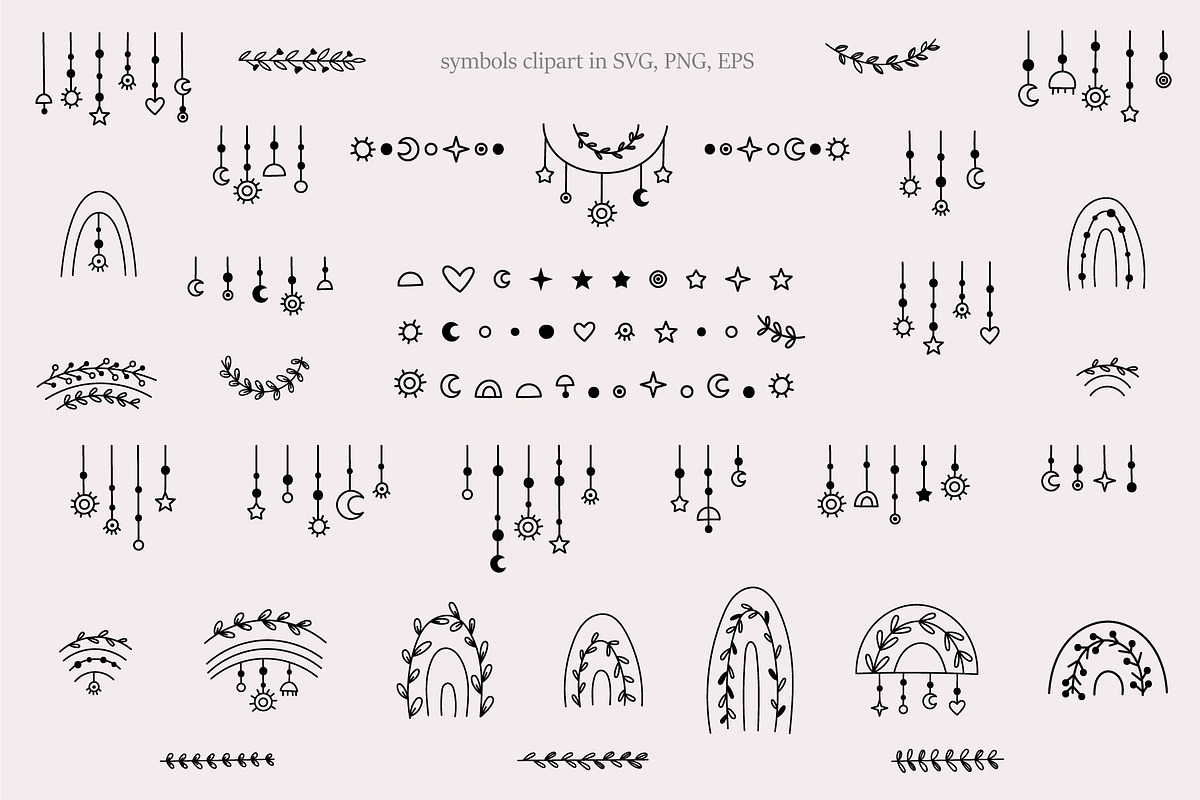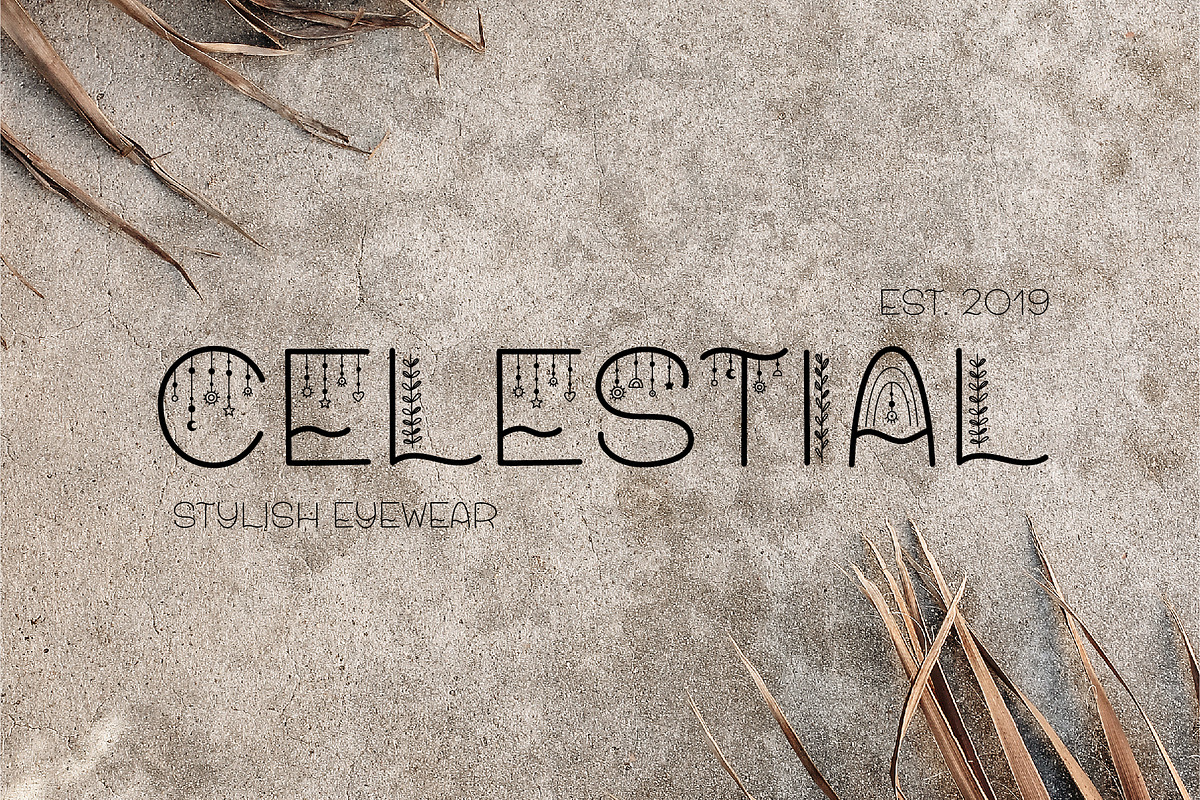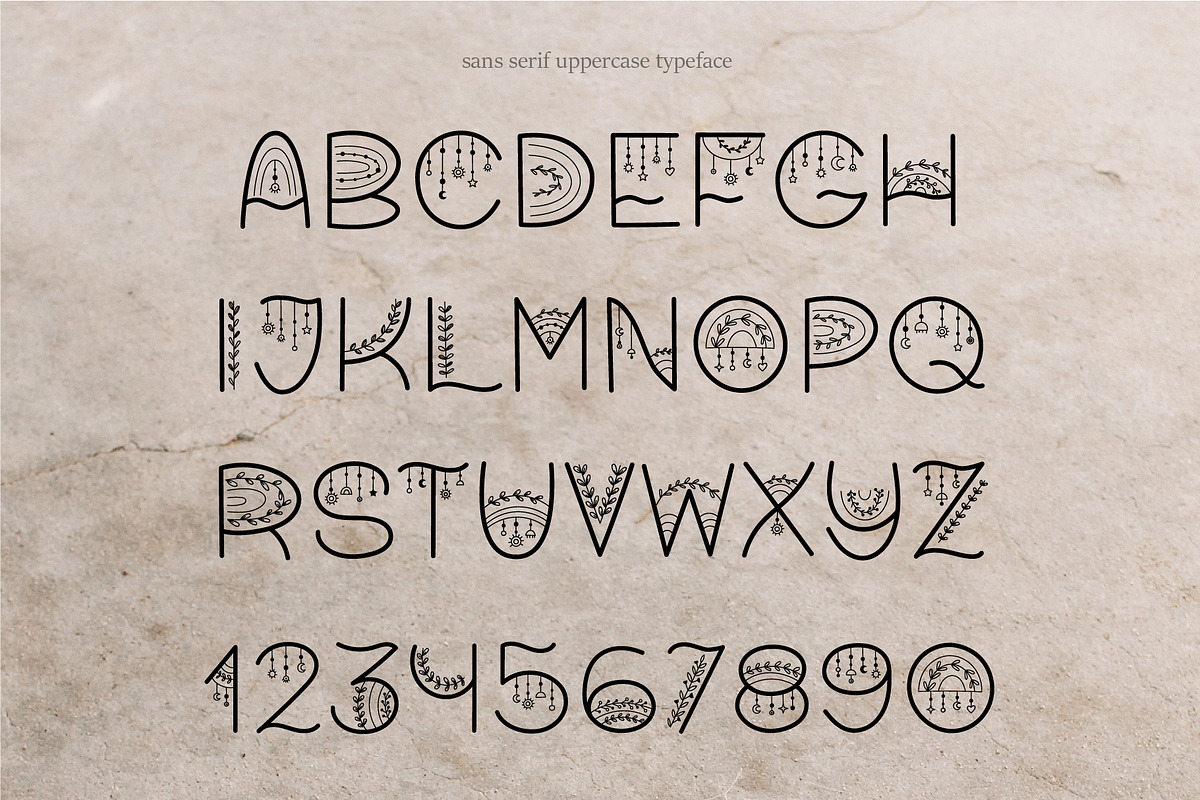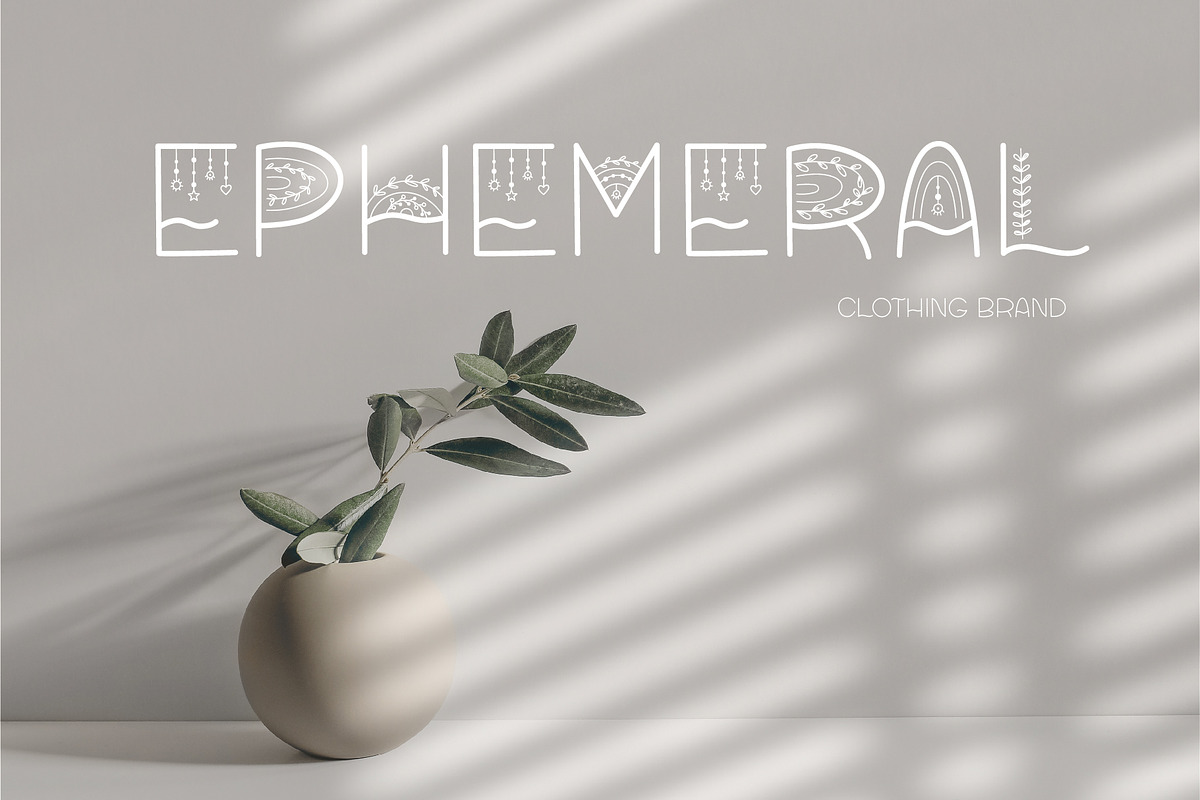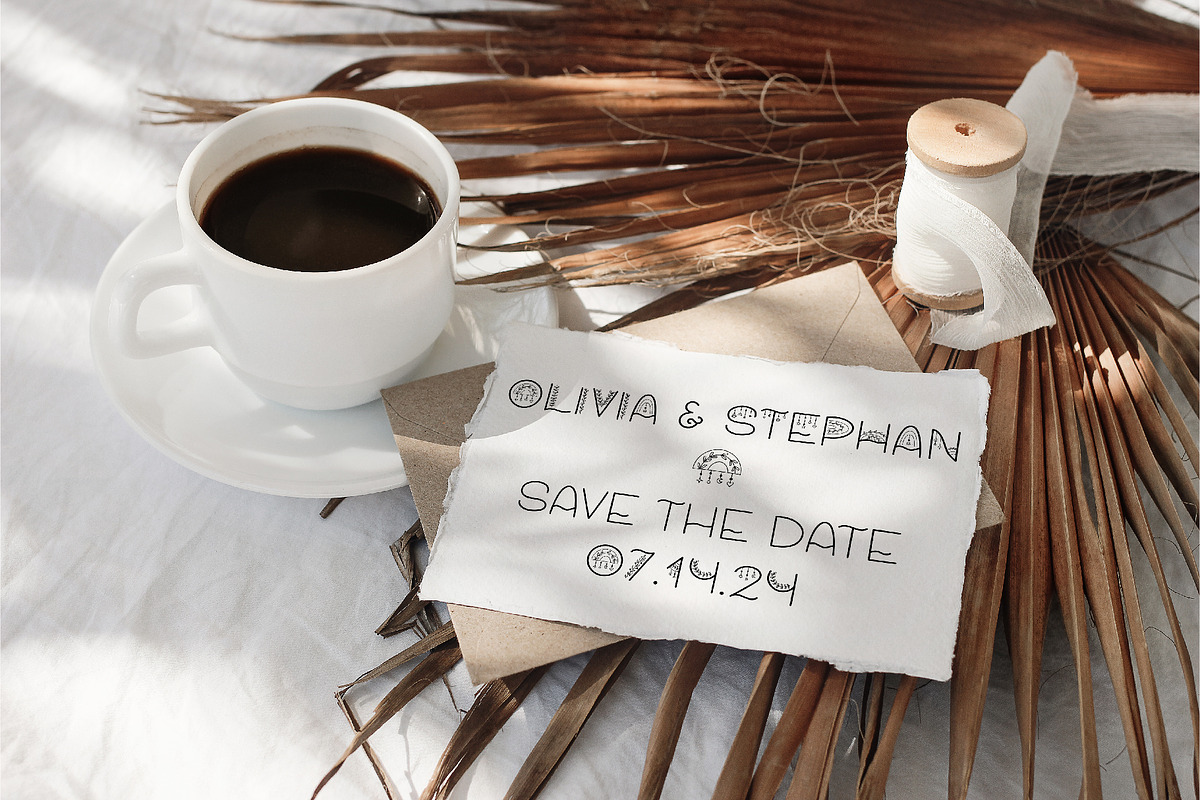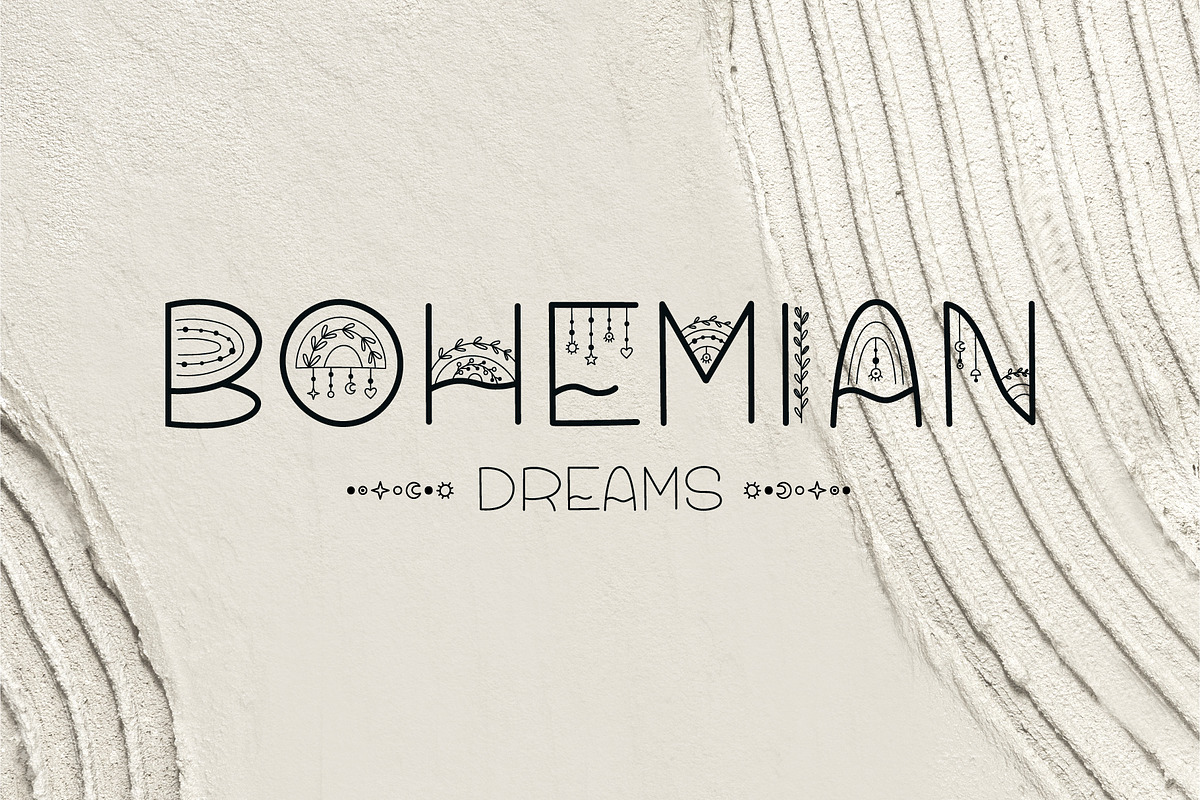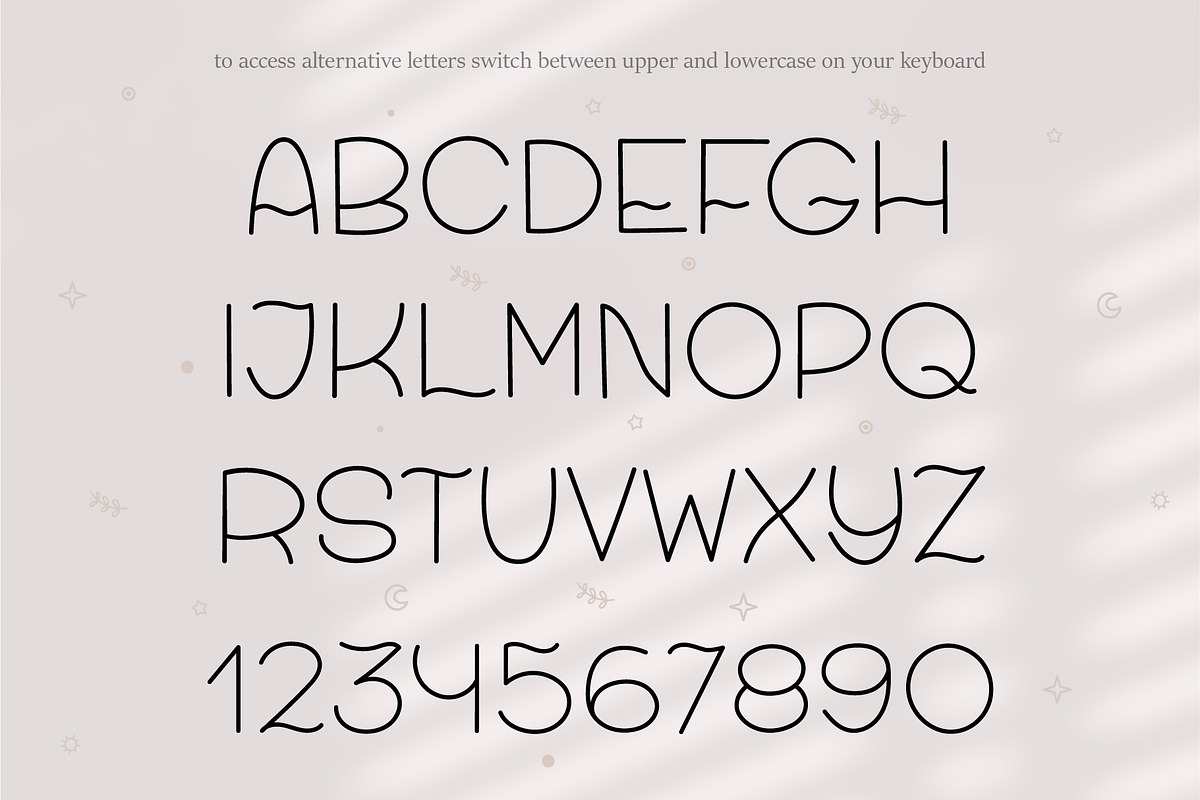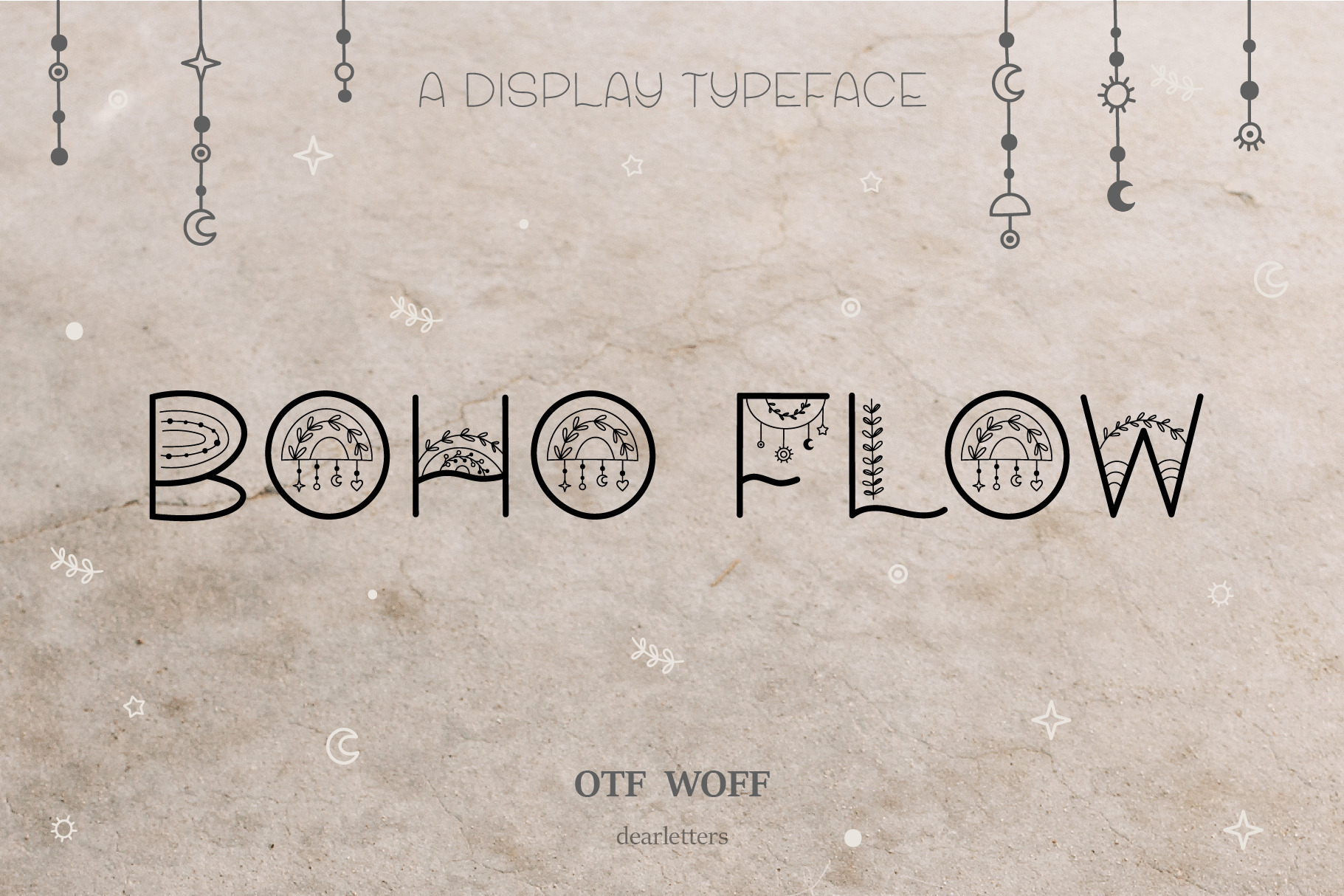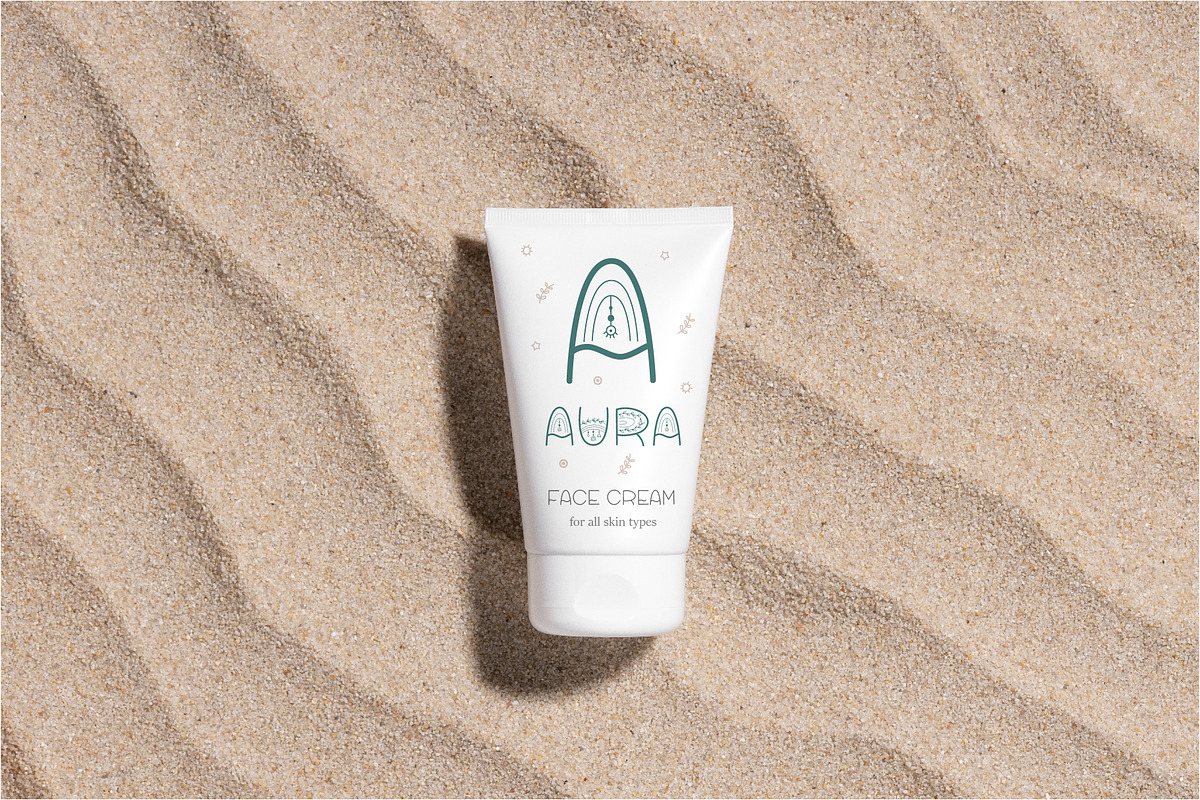
Boho Flow font and symbols
BOHO FLOW is a decorative hand-drawn uppercase font, presented in two variations. You'll also get a file with all the decor elements to give your designs a finished look! It's an authentic product that works great with branding projects, social media, logo design, wedding invitations, clothing branding, product packaging, nursery printables, magazine headers, photo overlays, posters, e.t.c.